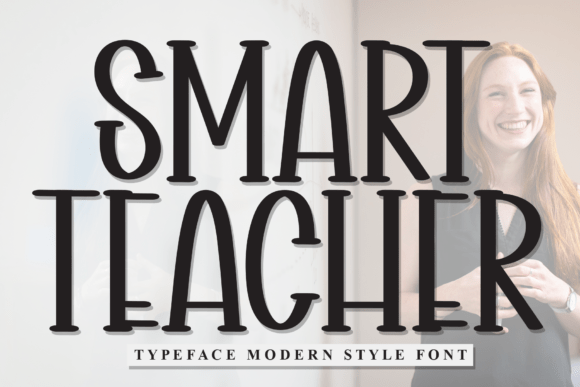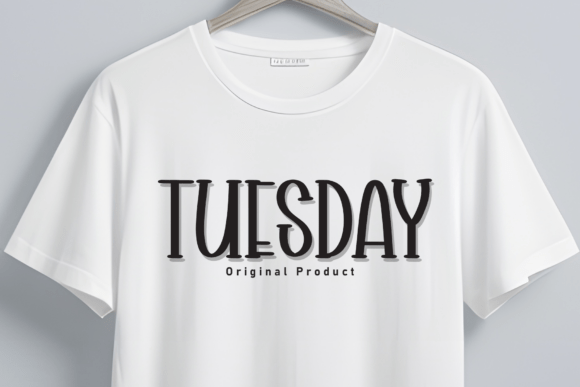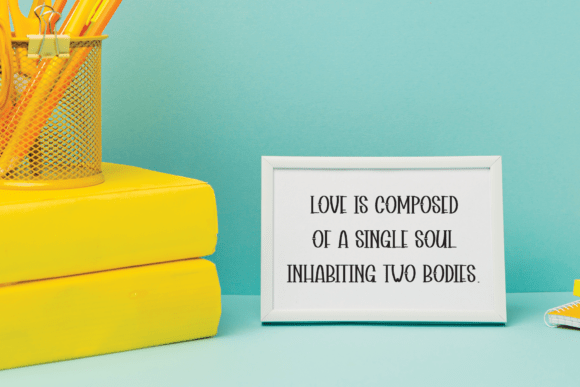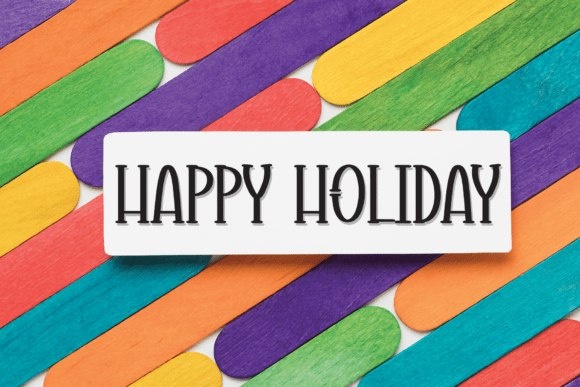
Smart Teacher Font
About the Smart Teacher Font
Unleash your creativity with Smart Teacher Font, a versatile font perfect for a wide range of applications. Immerse yourself in the charming allure of a handwritten display font – the ink-drenched embodiment of warmth and friendliness. Its delightful quirkiness unfolds in every stroke, adding a playful touch to your design canvas. Perfectly suited for elegant wedding invitations, heartfelt greeting cards, or any design project yearning for an infusion of fun, this typeface crafts a visual narrative that’s as sweet as a love letter and as inviting as a smile. This font gracefully bridges the gap between traditional penmanship and modern design, creating an irresistible allure that’s undeniably extraordinary.